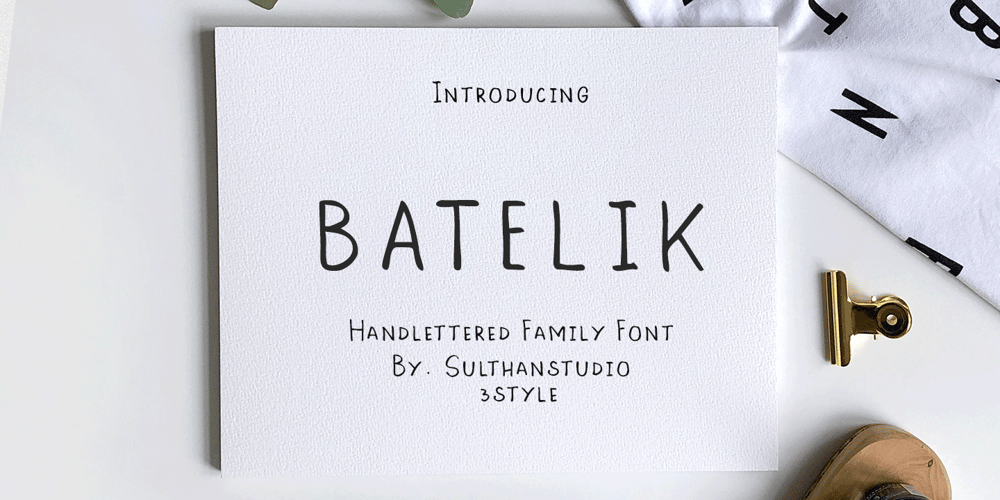
Batelik
Batelik font
Batelik Font Family was designed by Nasrullah and published by Sulthan Studio. Batelik contains 3 styles and family package options. Batelik -This is handwriting on paper using a pen and then we turn it into 3 styles such as regular Batelik which is original or natural handwriting without being cleaned or tidied up in the slightest while Batelik1, or Batelik2I tidy it up and clean it, it’s very modern and minimalist, it’s really cool and it’s amazing that you can try it for the job you’re doing.letters are equipped with uppercase and lowercase letters, punctuation numbers and also language support